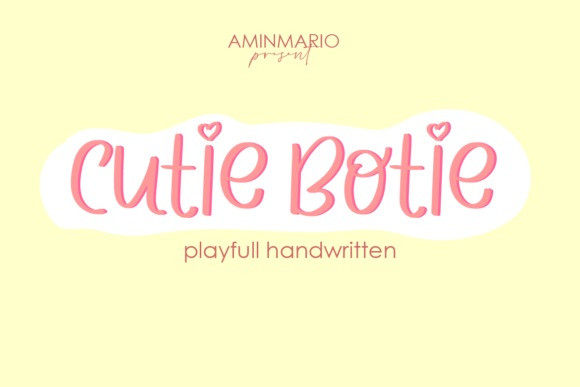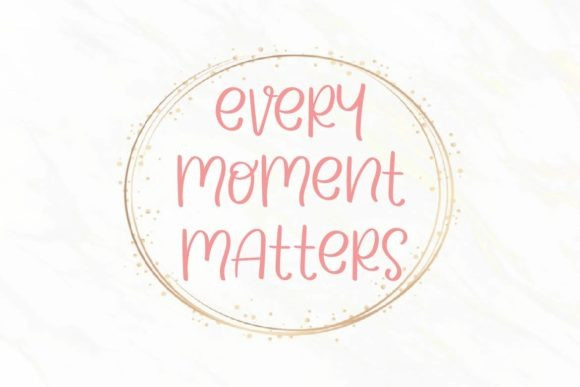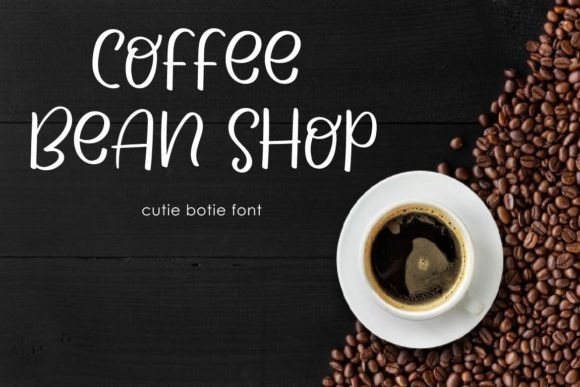
Cutie Botie Handwritten Font
Cutie Botie is a joyful and quirky handwritten font. Fall in love with its incredibly versatile style and use it to create gorgeous wedding invitations, beautiful stationary art, eye-catching social media posts, and much more!